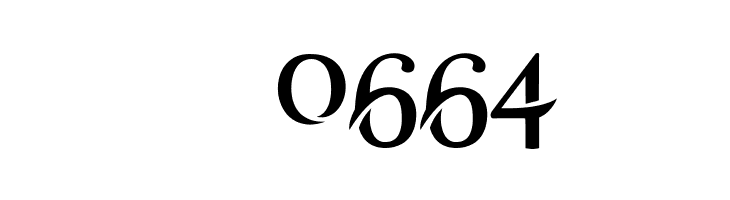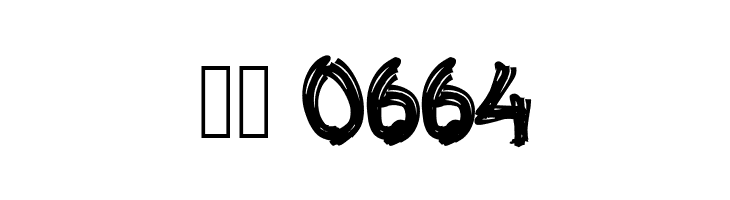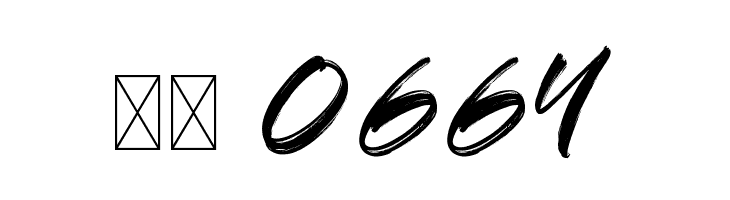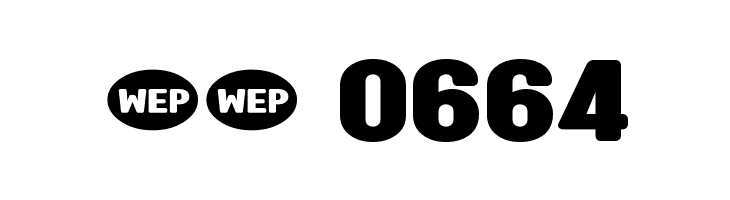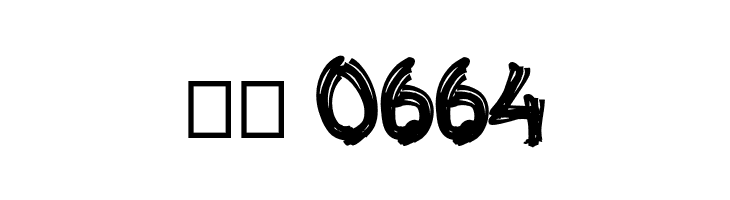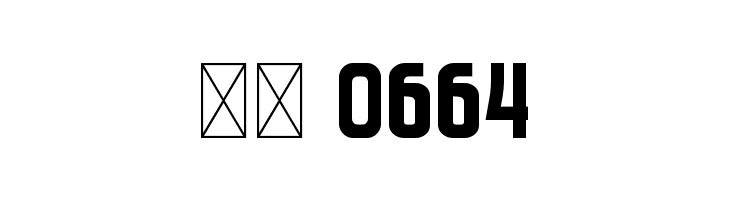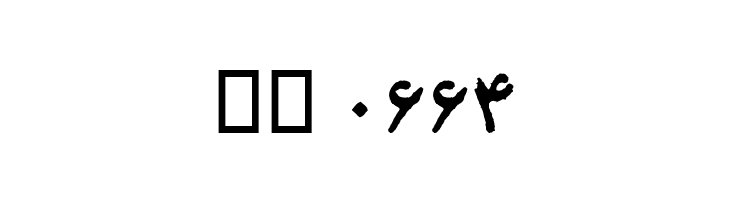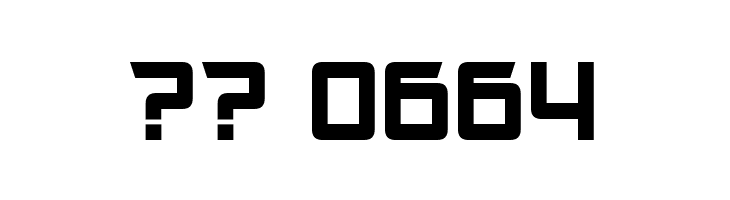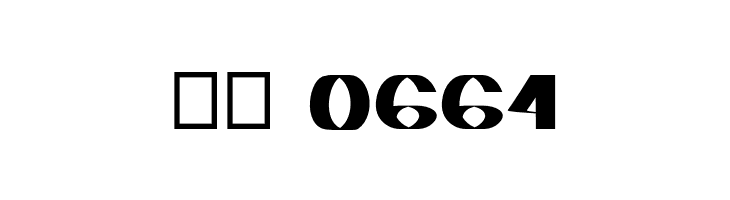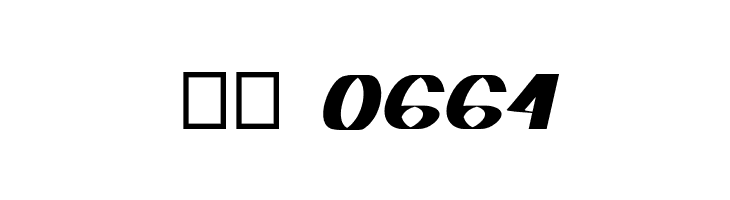
A modern, geometric font with rounded edges and consistent stroke width.
A bold, hand-drawn font with an energetic and graffiti-like style.
A bold, hand-drawn font with a brush-like texture and dynamic style.
A bold, geometric font with a modern and technical style.
A bold, dynamic font with sharp, angular edges and unique cutouts.
A bold, modern font with angular cutouts and a dynamic style.
A bold and dynamic font with sharp angles and smooth curves.
A bold, italic font with angular, dynamic characters.
A bold, italic font with sharp, angular cuts and a modern, energetic style.
A bold, italic font with angular, modern design elements.
An elegant script font with flowing cursive style and graceful swashes.
An elegant, decorative script font with intricate swashes and flowing letterforms.
An elegant script font with flowing cursive letters and high contrast strokes.
A classic serif font with modern elegance and medium contrast.
A bold, vintage-style font with high contrast and strong presence.
A playful handwritten font with fluid, whimsical letterforms.
A cursive, handwritten font with a lively and artistic style.
A bold, rounded font ideal for impactful headlines and designs.
A bold, rounded font with a strong, cohesive appearance.
A bold, expressive handwritten font with fluid strokes and artistic flair.
A bold, expressive handwritten font with dynamic strokes and playful elegance.
A dynamic, brush-style font with bold, expressive strokes.
A playful, handwritten font with rounded, smooth strokes.
A bold, geometric font with clean lines and a modern style.
A bold, expanded font with a strong, modern presence.
A bold, playful font with exaggerated, irregular shapes and a whimsical style.
A modern, geometric font with interconnected lines and a bold, artistic style.
A modern, geometric font with interconnected lines and a cohesive design.
A bold, expressive script font with a dynamic, handwritten style.
A dynamic, cursive font with expressive strokes and a modern calligraphic style.
An artistic, calligraphic font with flowing lines and decorative flourishes.
A whimsical, cursive-like font with artistic flair and elegance.
A bold, modern sans-serif font with clean lines and strong visual impact.
A bold, modern sans-serif font with clean lines and excellent legibility.